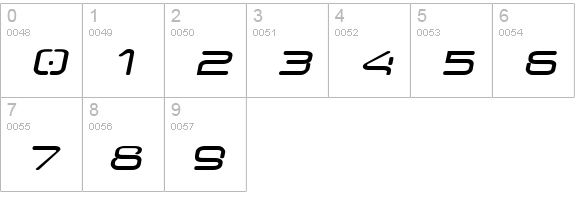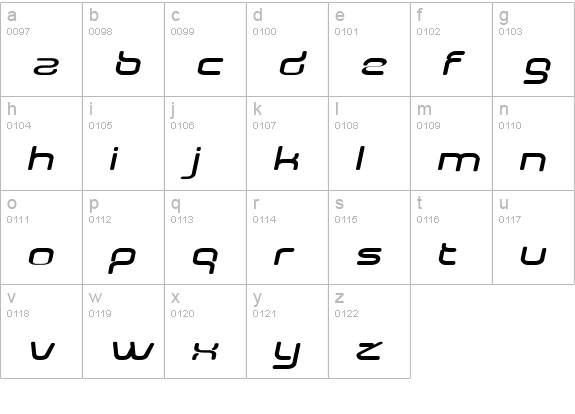
AunchantedExpandedBoldOblique Font Details
AunchantedExpandedBoldOblique font is an enchanting and captivating typeface that effortlessly combines boldness with elegance. Its unique oblique style adds a touch of sophistication to any design project. This font is perfect for creating eye-catching headlines, branding materials, and stylish graphics. What sets AunchantedExpandedBoldOblique font apart is its versatility and modern appeal. Whether you're working on a poster, logo, or website, this font will make your text stand out and leave a lasting impression on your audience. The best part is that AunchantedExpandedBoldOblique font is completely free to download at FontsMarket.com. With just a few clicks, you can add this stunning font to your collection and start using it in your projects right away. Don't miss out on this fantastic opportunity to elevate your designs with AunchantedExpandedBoldOblique font!